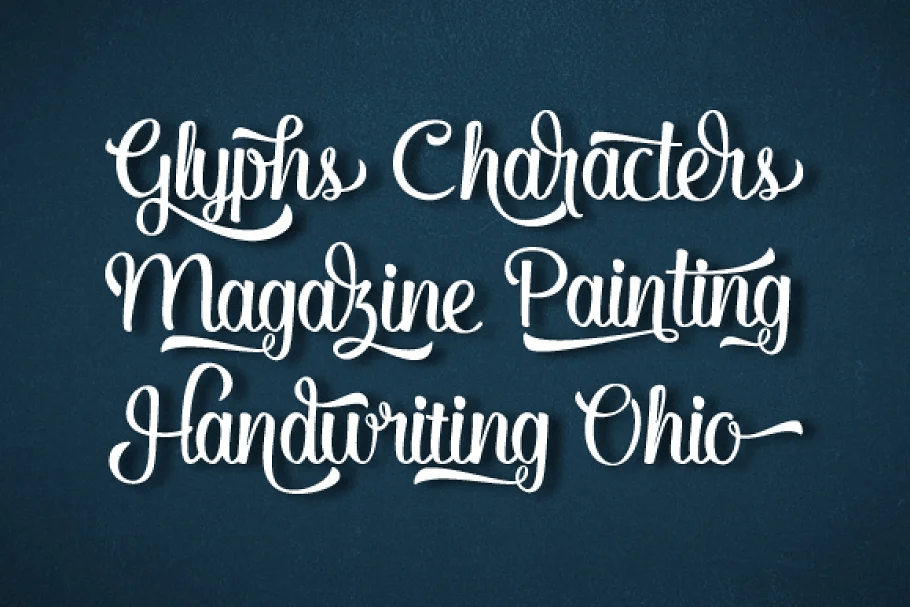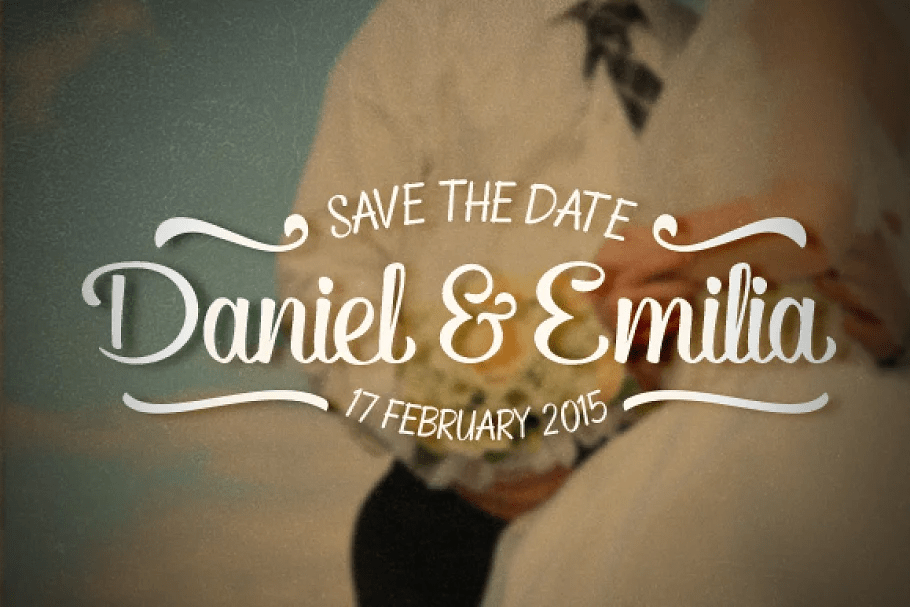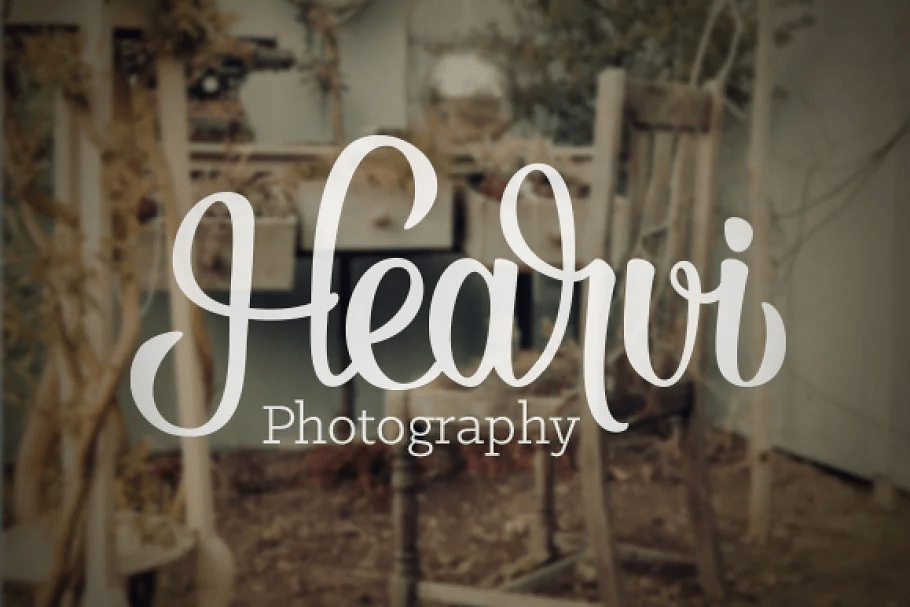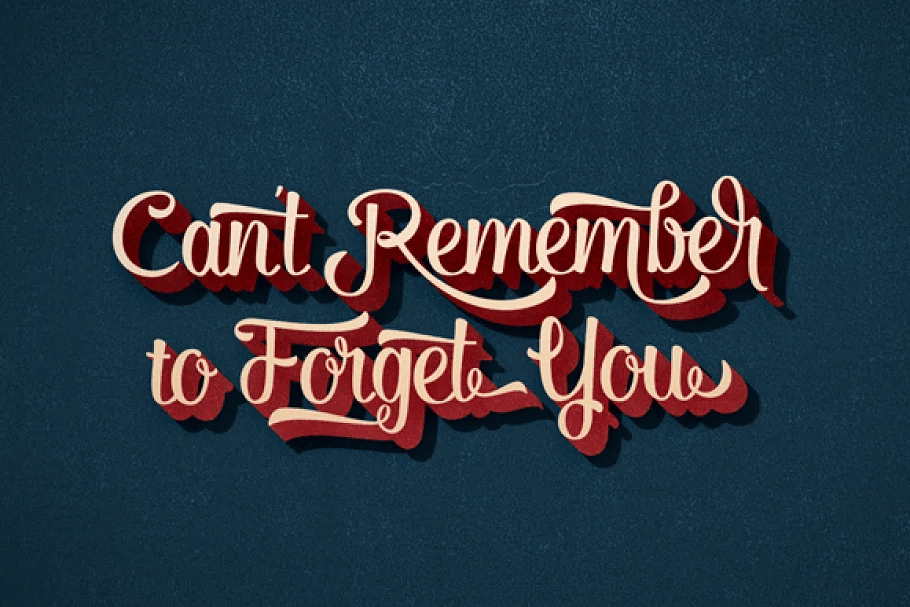
Karmela
Font Family by Graptail
Hello! We want to introduce you Karmela Script.
A typeface that pays tribute to all letterers that created amazing signs in magazines, walls and windows through the brush lettering during many years, especially in the 50s and 60s. This font is 100% based on the brush traces, it has 329 glyphs, contextual, ligatures, swsh and alternates in any OpenType Savvy program or manually choose from even more alternate characters from Glyph Palette.